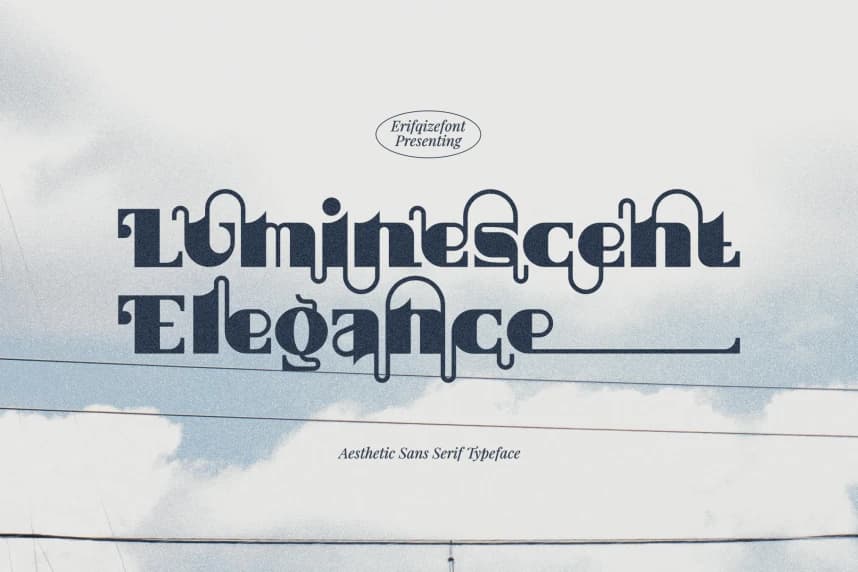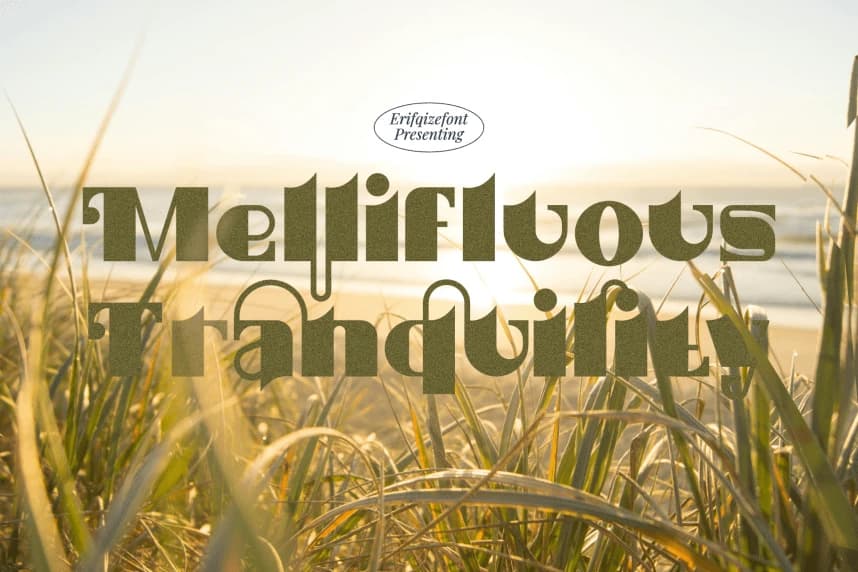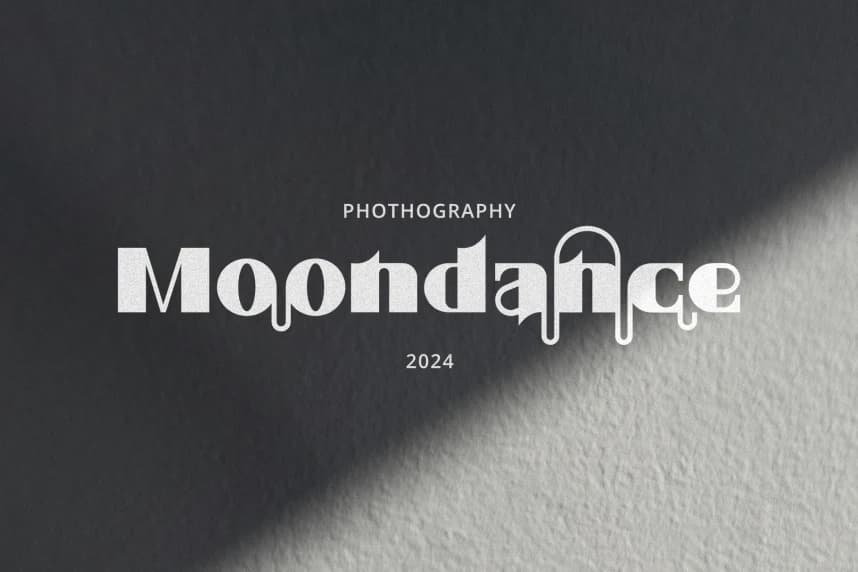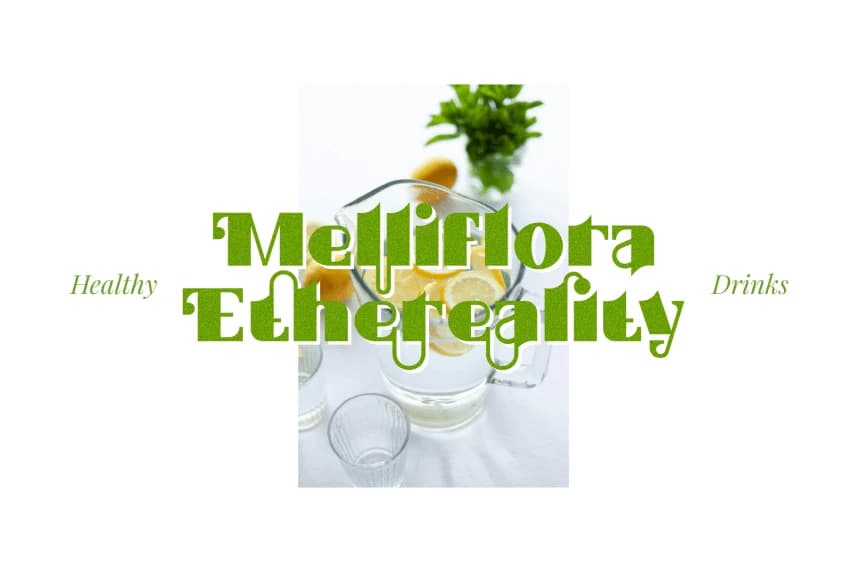
Luminescent Elegance Typeface
Luminescent Elegance Typeface is a modern, elegant, and aesthetic sans-serif font designed to bring a refined touch to your creative projects. Perfectly suited for advertising, branding, logotypes, packaging, titles, headlines, and editorial design, this font combines sophistication with versatility
Luminescent Elegance Typeface is a modern, elegant, and aesthetic sans-serif font designed to bring a refined touch to your creative projects. Perfectly suited for advertising, branding, logotypes, packaging, titles, headlines, and editorial design, this font combines sophistication with versatility.